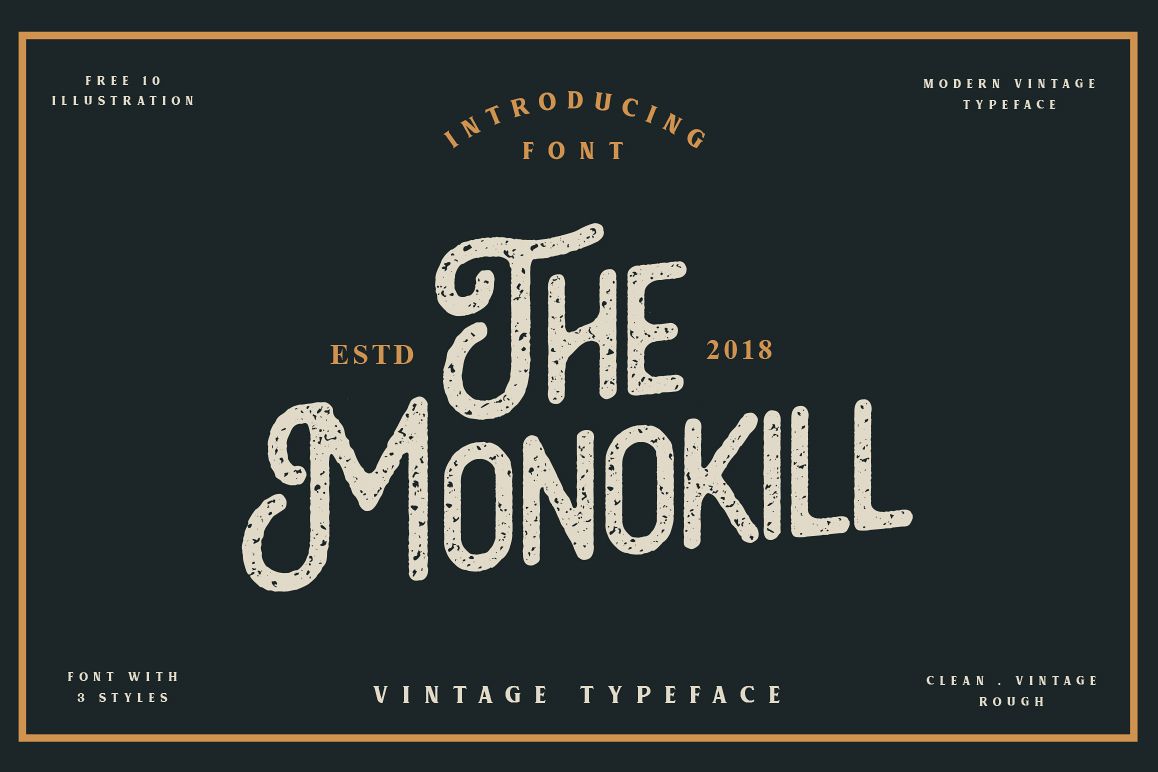
The Monokill - 3 Font With Extras
The Monokill is modern vintage display typefaces, This font has 3 styles, namely clean - vintage - rough which will make the display look good. Choose between varying texture strength for your desired effect. Perfect for Logos, Advertising, Apparel Design, Labels, Signage, Etc.Font Style :
• Clean
• Vintage
• Rough
Feature :
• Upper and Lowercase Standard Characters, Punctuation, Numerals.
• Opentype Features
• PUA Encoded Characters – Fully accessible without additional design software.